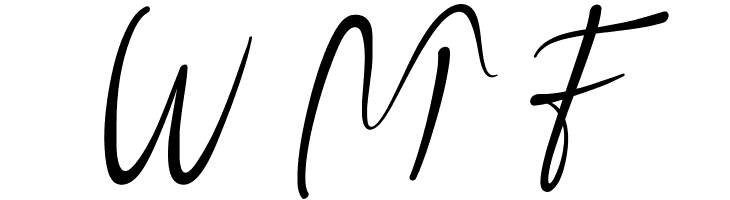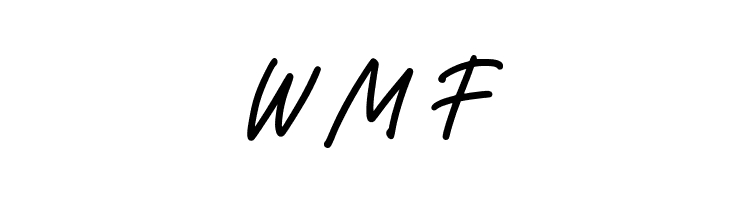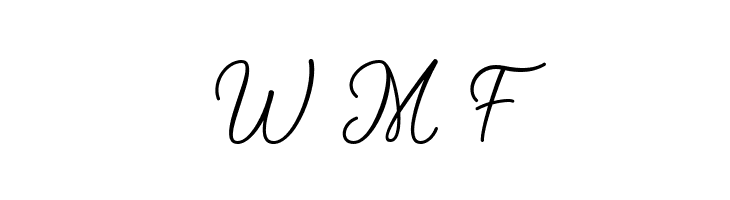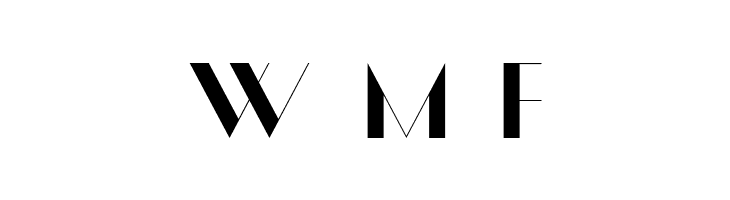
A graceful script font with flowing, connected strokes and elegant curves.
A bold, elegant script font with fluid, connected letterforms.
A whimsical, hand-drawn script font with decorative swirls and bold characters.
A whimsical script font with flowing, curly strokes and playful loops.
A bold, handwritten font with fluid, connected strokes and a playful style.
A high-contrast, elegant font with bold uppercase and sleek lowercase letters.